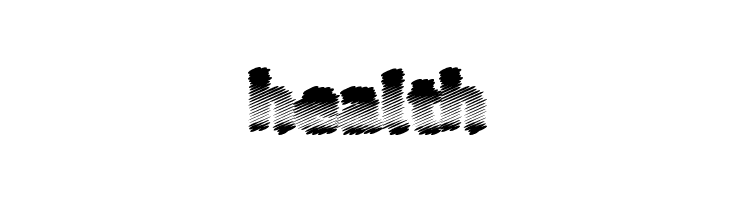
A sleek, semi-italic font with a modern, dynamic style.
A sleek, italicized font with a futuristic and dynamic style.
A playful, hand-drawn font with a whimsical and irregular style.
A playful, bubble-like font with thick outlines and a cartoonish style.
A flowing, cursive script font with elegant, connected letters.
A bold, geometric font with a futuristic and abstract design.
A bold, three-dimensional geometric font with an architectural style.
A bold, halftone-textured font with a playful, comic book style.
A tall, slender, and playful font with a modern and whimsical style.
Cartoon illustration-based decorative font with unique character drawings.
A playful, cartoon character-based decorative font.
A playful, hand-drawn font with rounded, friendly characters.
A playful, casual handwritten font with uneven strokes and a lively appearance.
A whimsical, hand-drawn font with playful, decorative elements.
A playful, casual handwritten font with an organic, lively style.
A playful, hand-drawn font with tall, narrow letters and a whimsical charm.
A casual, playful handwritten font with flowing strokes and a relaxed style.
A playful, casual handwritten font with uneven strokes and a personal touch.
A playful, casual handwritten font with a dynamic and informal style.
A casual, handwritten font with a playful and informal style.
A playful, handwritten font with dynamic strokes and a casual style.
A playful collection of hand-drawn doodles with a whimsical and casual style.
A playful, handwritten-style font with tall, narrow characters and a whimsical appearance.
A playful, handwritten font with bold strokes and a casual style.
A playful, casual handwritten font with uneven strokes and a personal touch.
A playful, handwritten font with bold, expressive strokes and a casual style.
A playful, casual handwritten font with irregular, whimsical strokes.
A playful, casual handwritten font with a lively and spontaneous appearance.
A playful, hand-drawn font with whimsical, doodle-like characters.